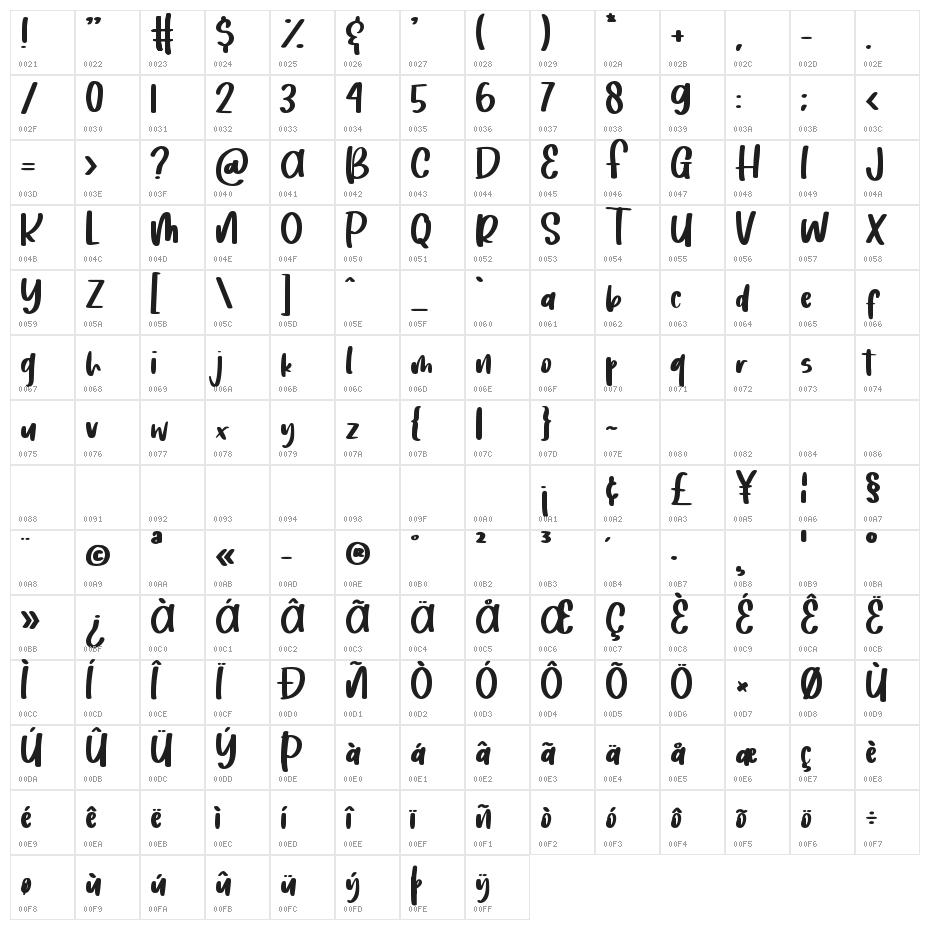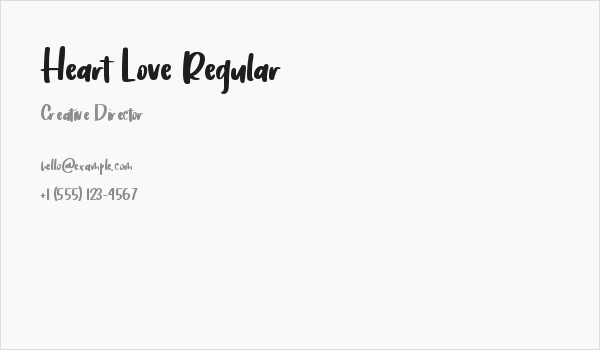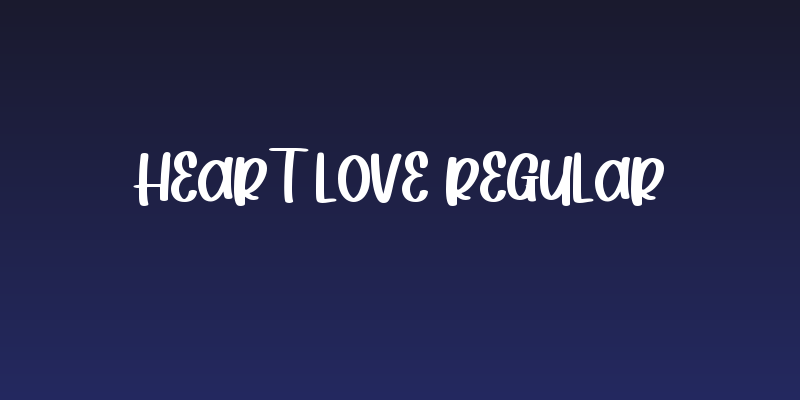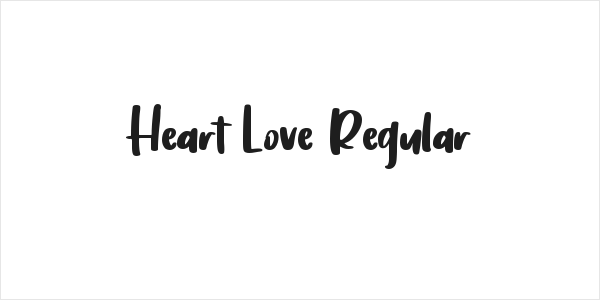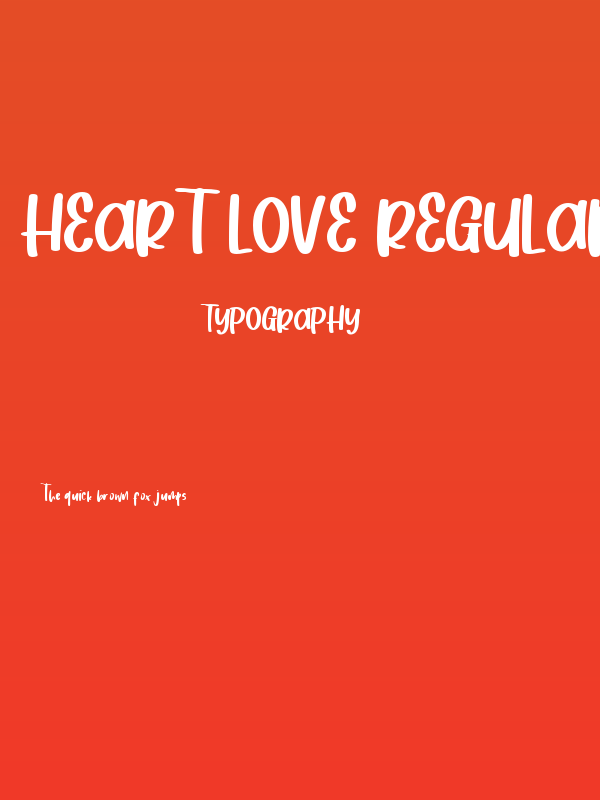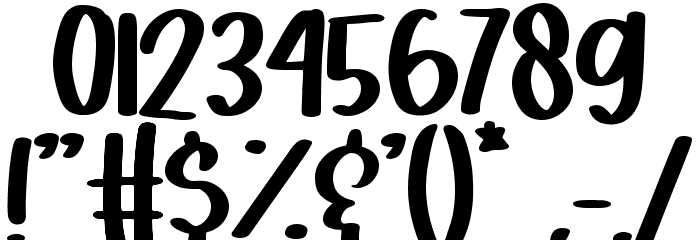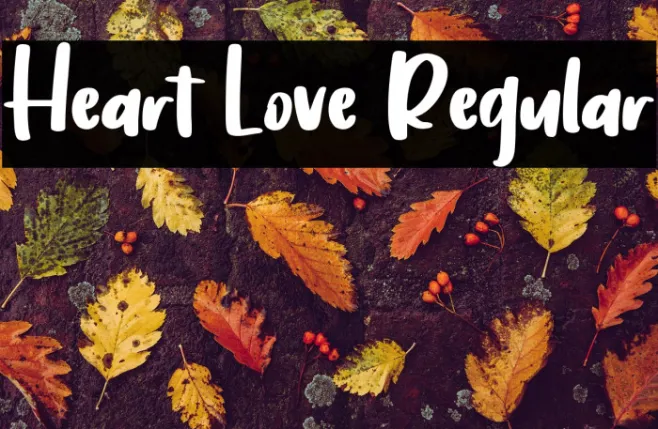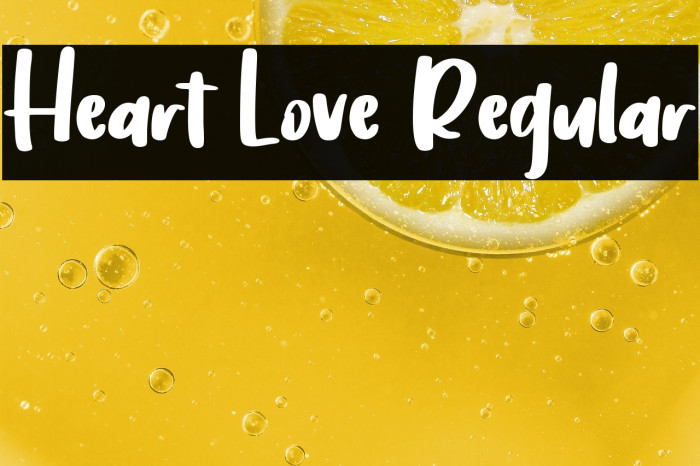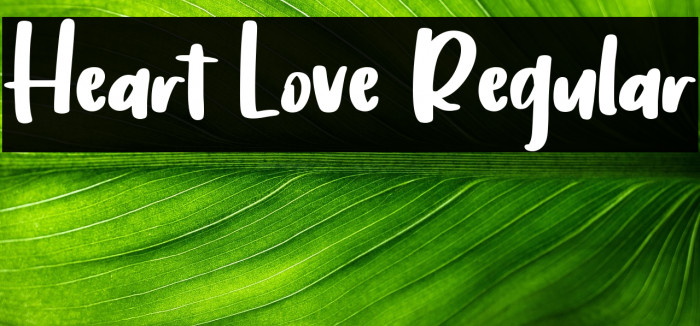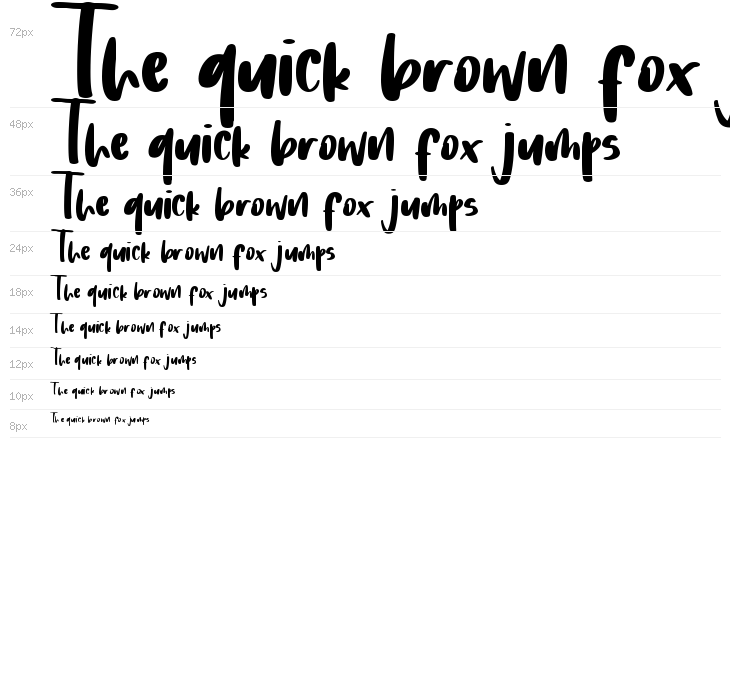
Heart Love Regular Font
Heart Love Regular Description
This playful and energetic font features bold, rounded characters with a handwritten style. The letters are slightly slanted, giving a dynamic and lively appearance. The strokes are thick and consistent, providing a strong visual impact. The uppercase and lowercase letters maintain a cohesive look, while the numbers and special characters are designed to match the overall aesthetic. The font's informal and friendly vibe makes it suitable for creative and casual projects.
| Proposed Projects | Ideal for greeting cards, posters, social media graphics, and children's book covers. |